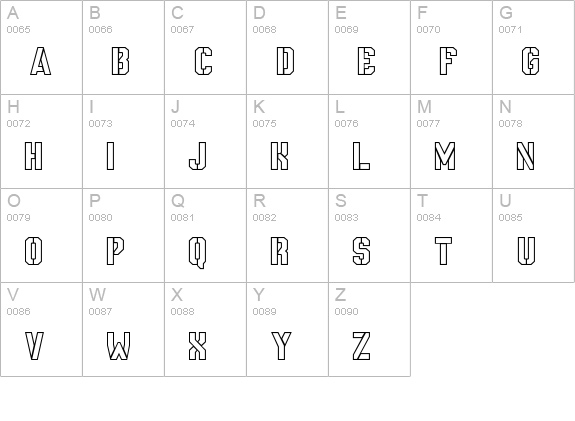
NCAA Army 2015 Font Details
The NCAA Army 2015 font is a bold and powerful typeface that captures the spirit of strength and determination. Inspired by the prestigious United States Military Academy, this font pays homage to the brave men and women who serve in the Army. With its sharp edges and commanding presence, NCAA Army 2015 font is perfect for creating impactful designs that demand attention. This font is not only visually striking, but it also holds a symbolic significance. Each letter is meticulously crafted to represent the dedication, discipline, and unwavering commitment of the soldiers who defend our nation. Whether you are designing a poster, a logo, or any other project that requires a strong and authoritative font, NCAA Army 2015 font will undoubtedly leave a lasting impression. The best part is that NCAA Army 2015 font is available for free download at FontsMarket.com. You can easily access this font and add it to your design arsenal without any cost. This means that you can freely unleash your creativity and create impactful designs without any limitations. So, if you are looking for a font that exudes strength, patriotism, and professionalism, look no further than NCAA Army 2015 font. Download it today from FontsMarket.com and take your designs to the next level.